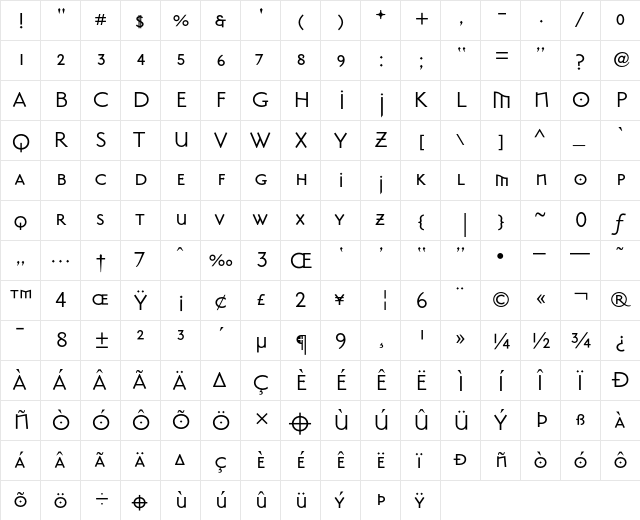
MasonSans Alternate Font Preview
MasonSans Alternate
Design Context for MasonSans Typeface
MasonSans offers clean, dependable letterforms without strong stylistic allegiance, making it a practical choice for designers who need flexibility.